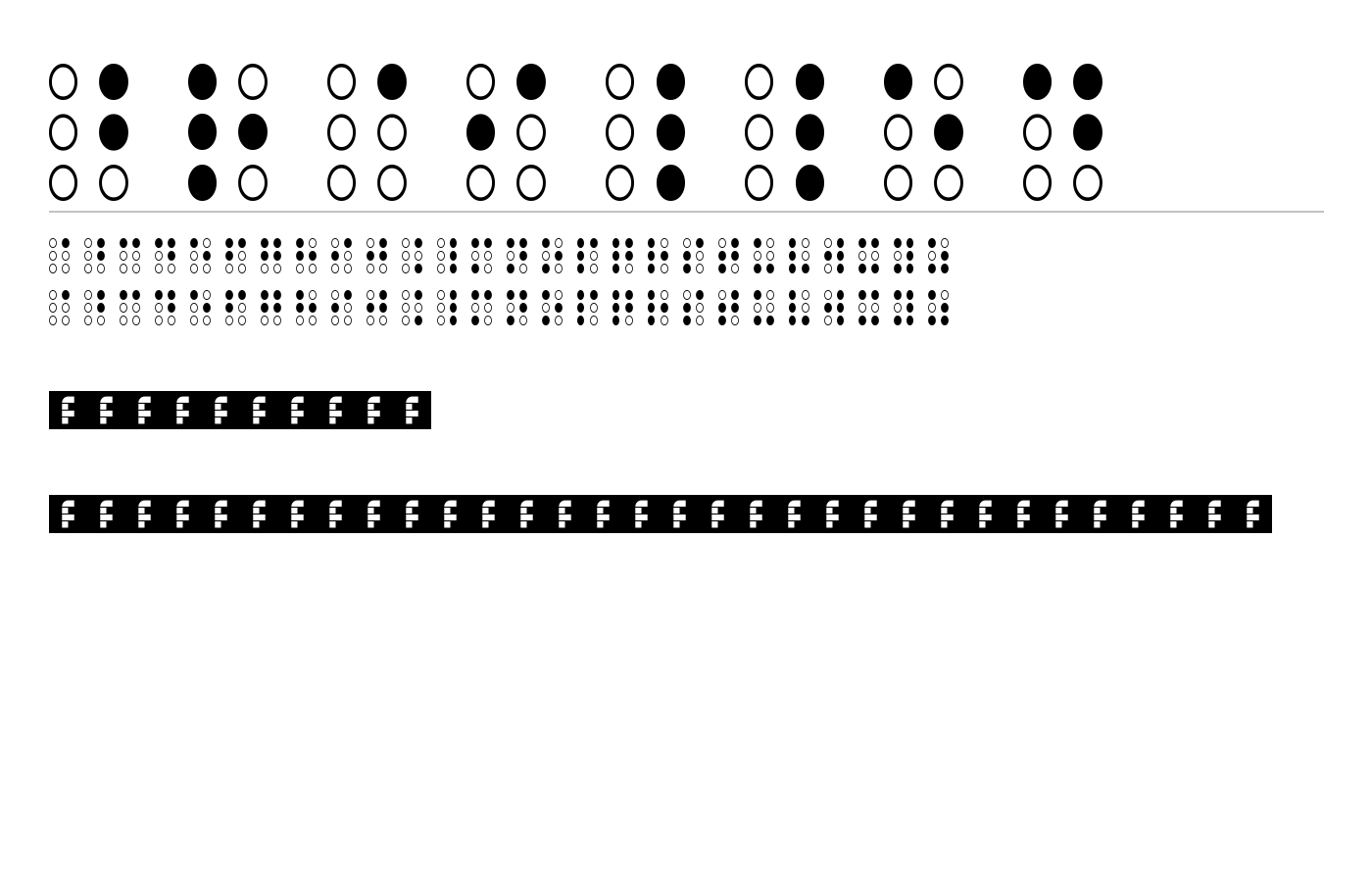
Brailled Font is a unique and minimalist display typeface inspired by the tactile Braille writing system, featuring a grid of simple, rounded dots in a clean, geometric arrangement. This font blends functionality with modern design, making it ideal for creative projects that want to evoke accessibility, education, or futuristic themes while maintaining a bold and distinctive look. It works best in logos, headlines, and conceptual designs where its symbolic and abstract qualities can stand out.
Brailled Font
About Brailled Font
| Font family | Brailled Font |
| Designer | Jamie Place |